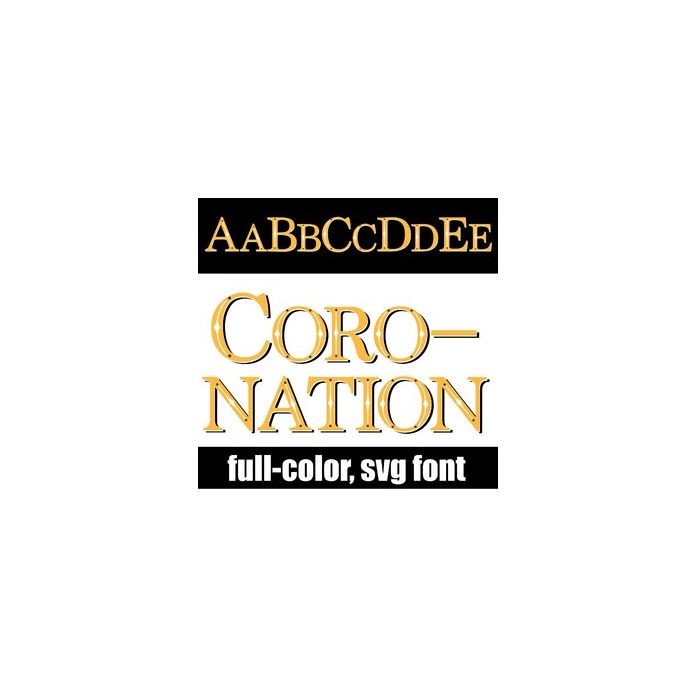
This full-color font features a gold serif font with small expensive details. This font works best for titles, displays, posters and more. Please note color fonts will show as black in non compatible programs. This font type is compatible with Silhouette Studio.